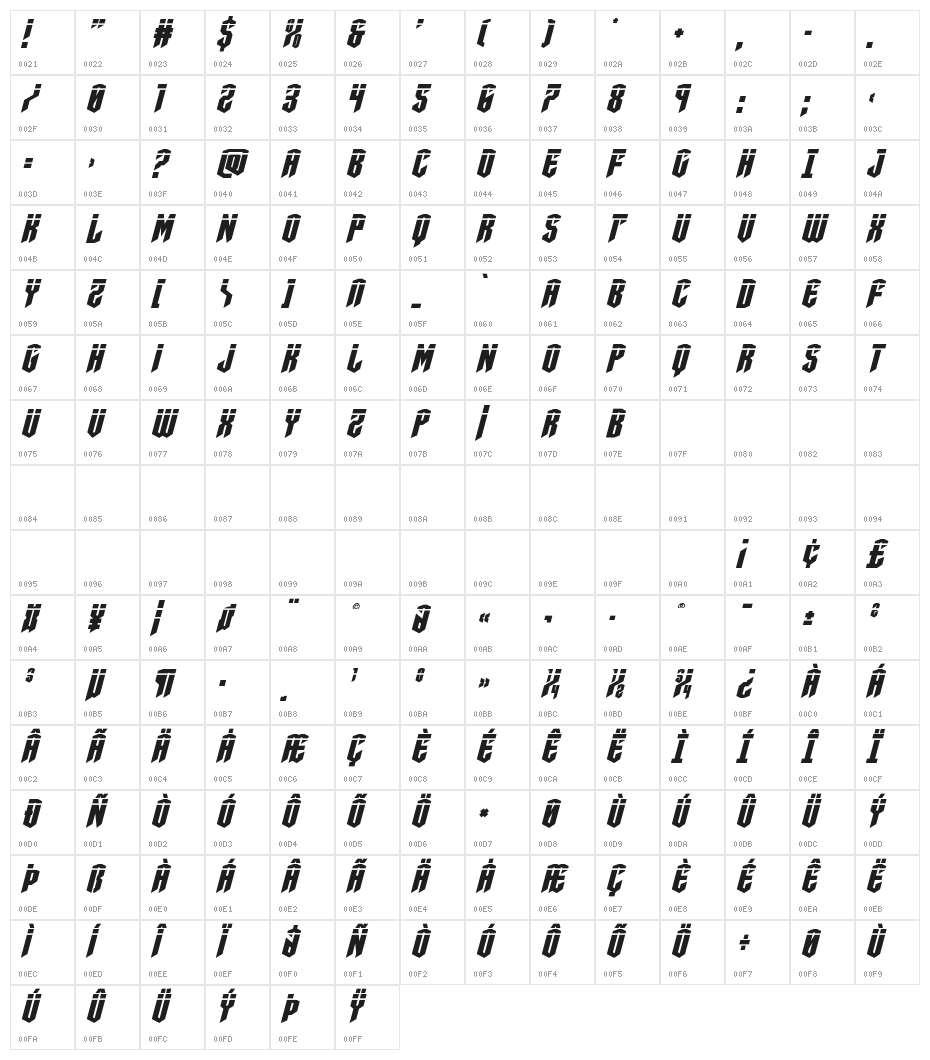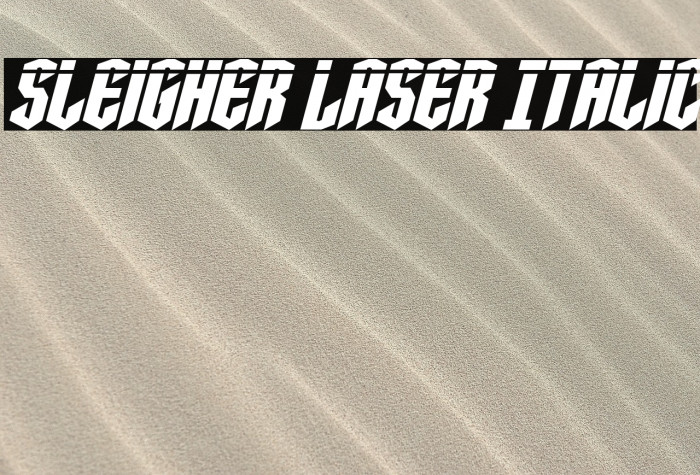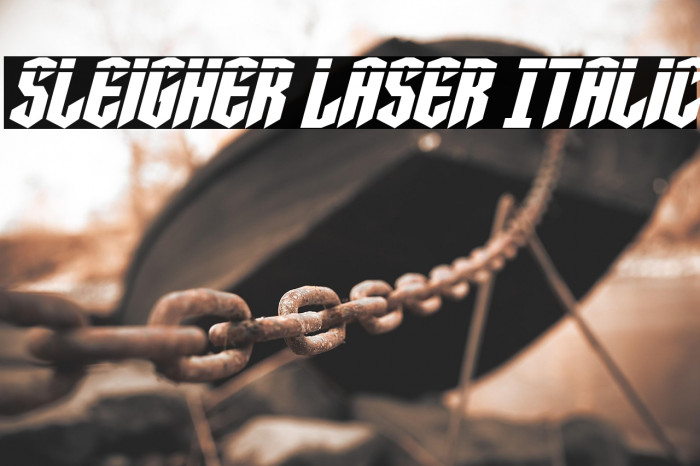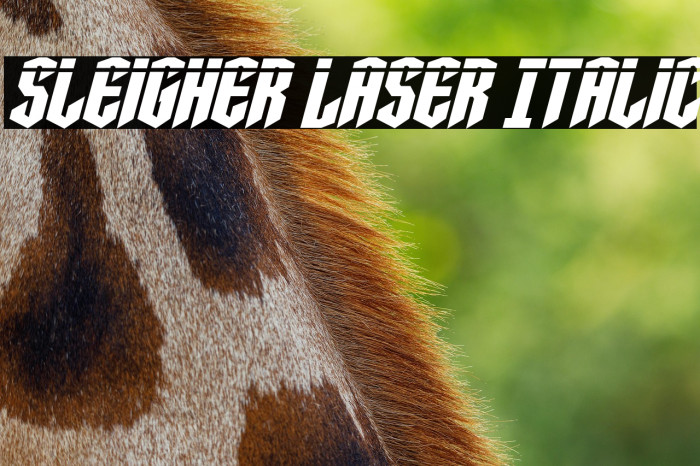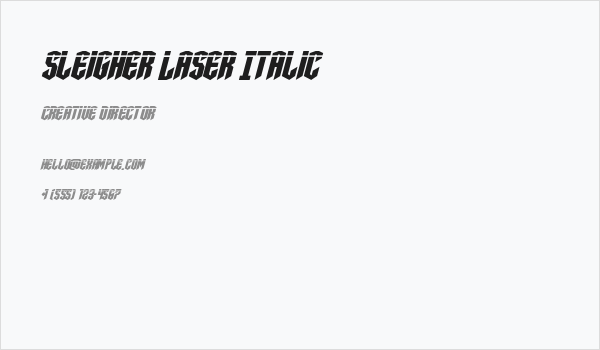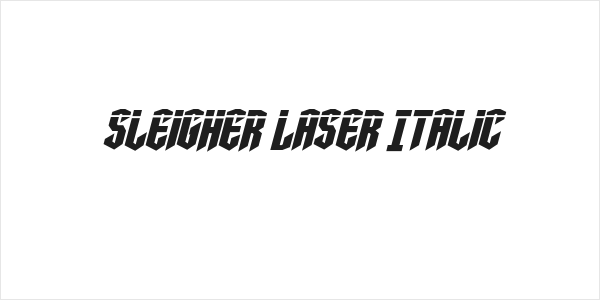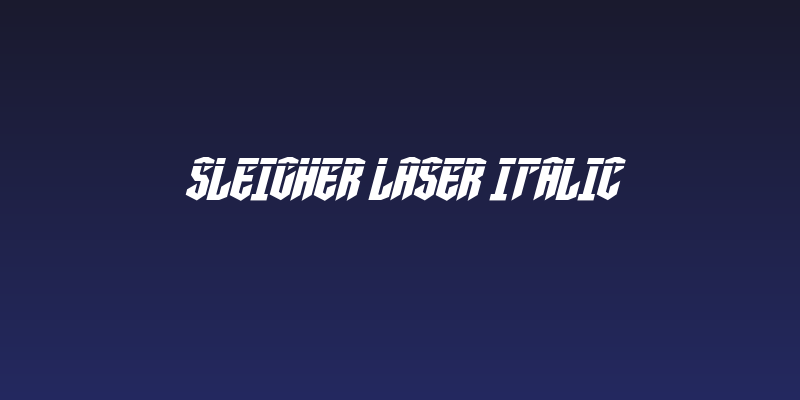
Sleigher Laser Italic Font
Sleigher Laser Italic Description
This font features a bold, angular design with a futuristic and edgy aesthetic. The characters are sharply cut with a distinct slant, giving them a dynamic and aggressive appearance. The uppercase and lowercase letters maintain a consistent style, with the uppercase being more prominent and the lowercase slightly more compact. Numbers and special characters follow the same angular and slanted theme, ensuring uniformity across the font. The overall design is reminiscent of a high-tech or sci-fi theme, suitable for projects that require a strong visual impact.
| Proposed Projects | Ideal for sci-fi movie posters, video game titles, tech branding, and edgy graphic designs. |